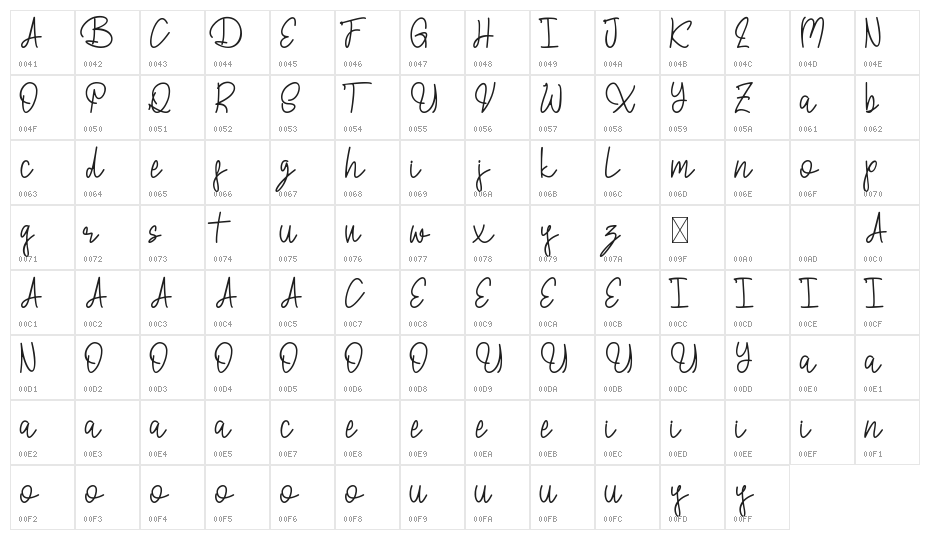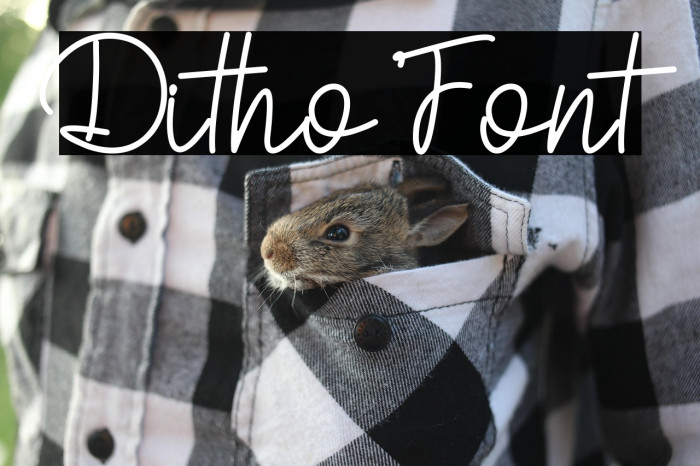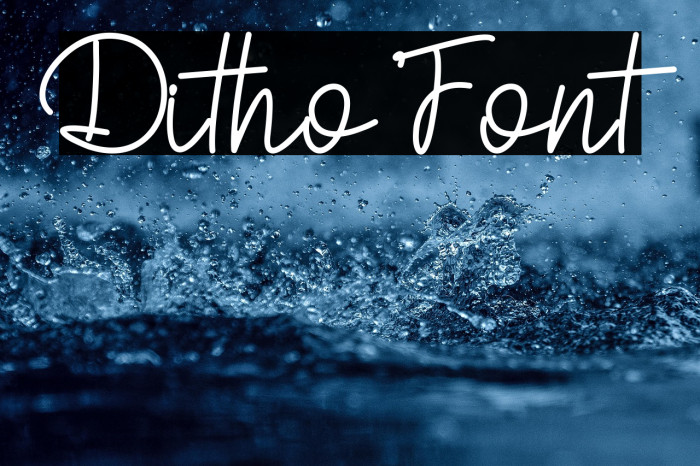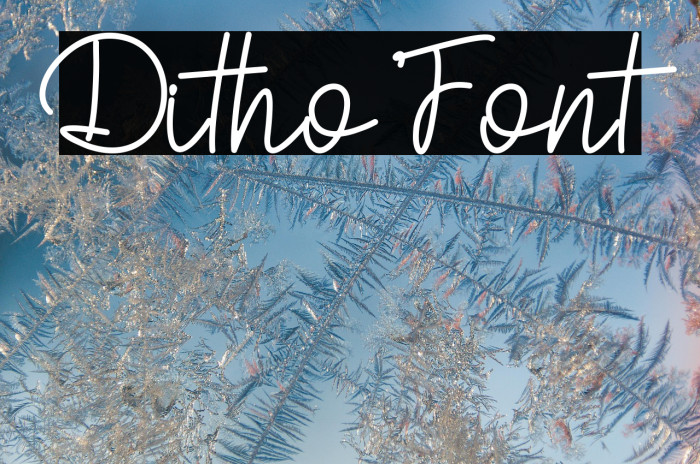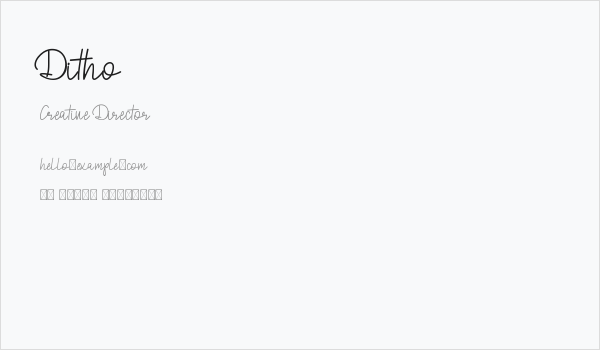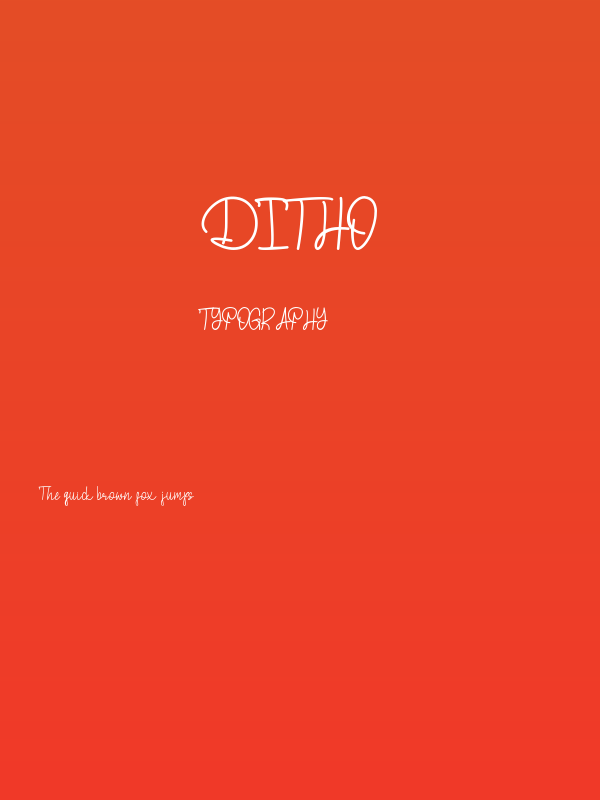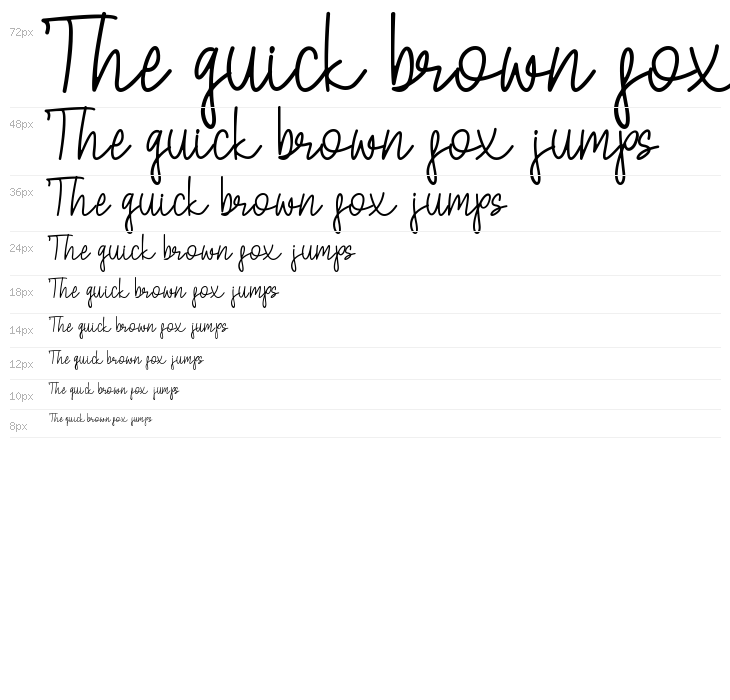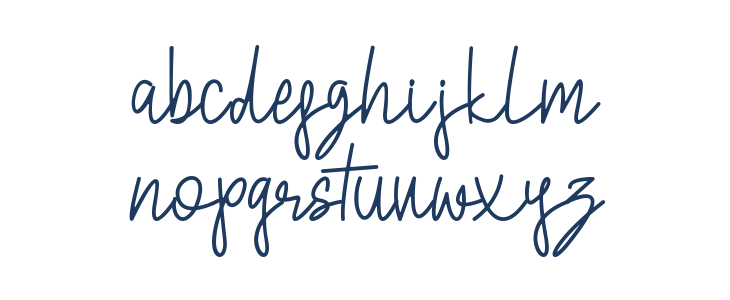
Ditho Font
Ditho Description
This font features a playful and energetic script style, characterized by its flowing, interconnected letters that mimic the fluidity of handwriting. The uppercase and lowercase letters maintain a consistent rhythm, with each character exhibiting a unique flair that adds personality to the text. The strokes are smooth and slightly varied in thickness, giving the font a dynamic and lively appearance. The special characters are seamlessly integrated, maintaining the overall aesthetic. This font is ideal for projects that require a personal touch, such as invitations, greeting cards, or branding materials.
| Overall Style | Playful, Energetic, Personal |
| Proposed Projects | Perfect for invitations, greeting cards, personal branding, and creative projects. |